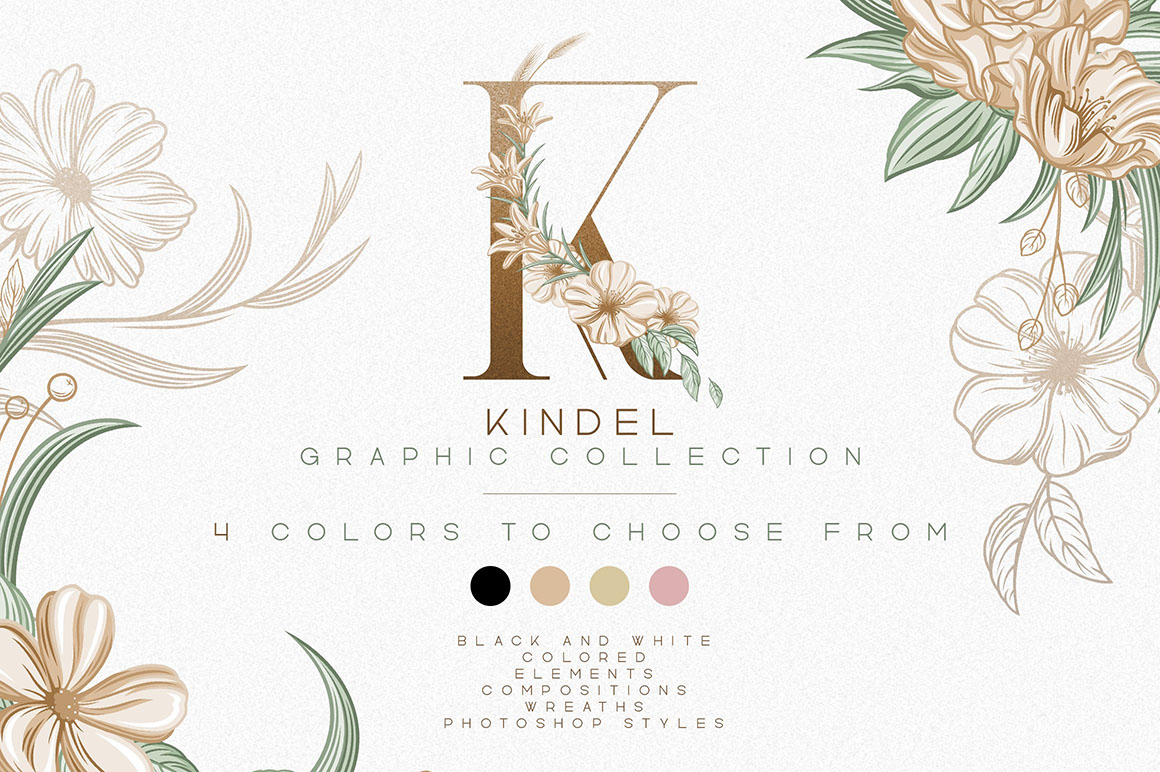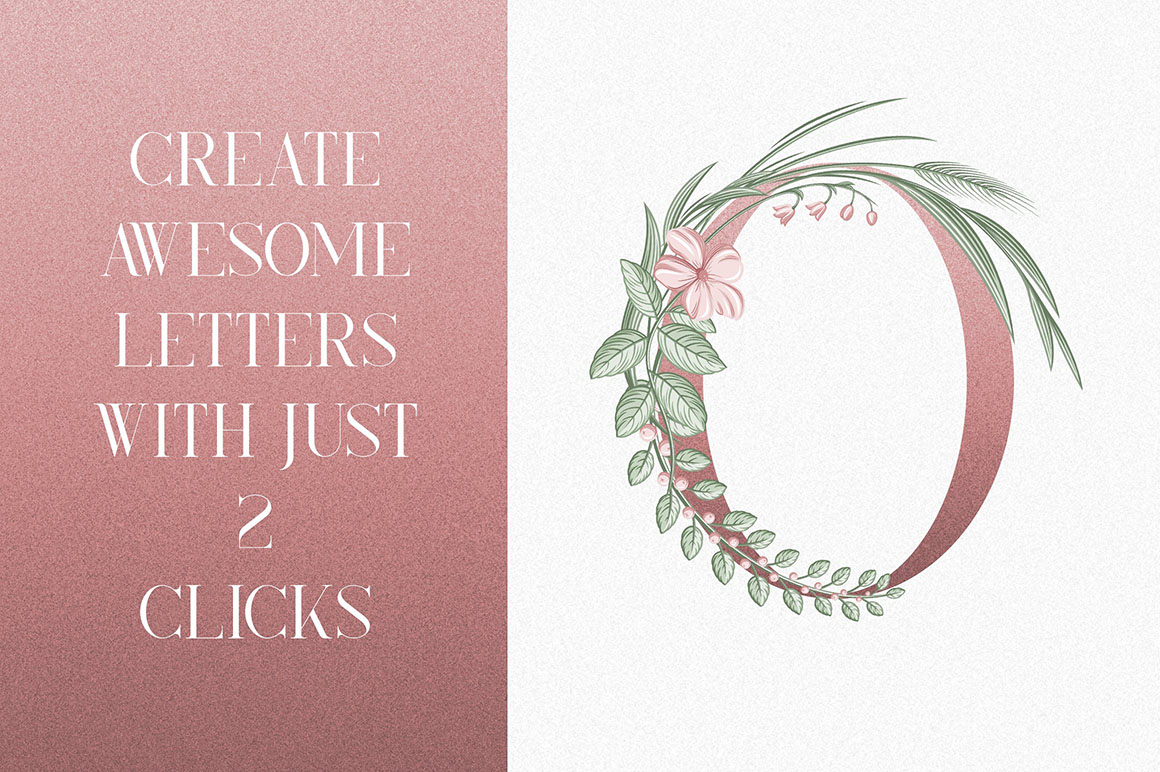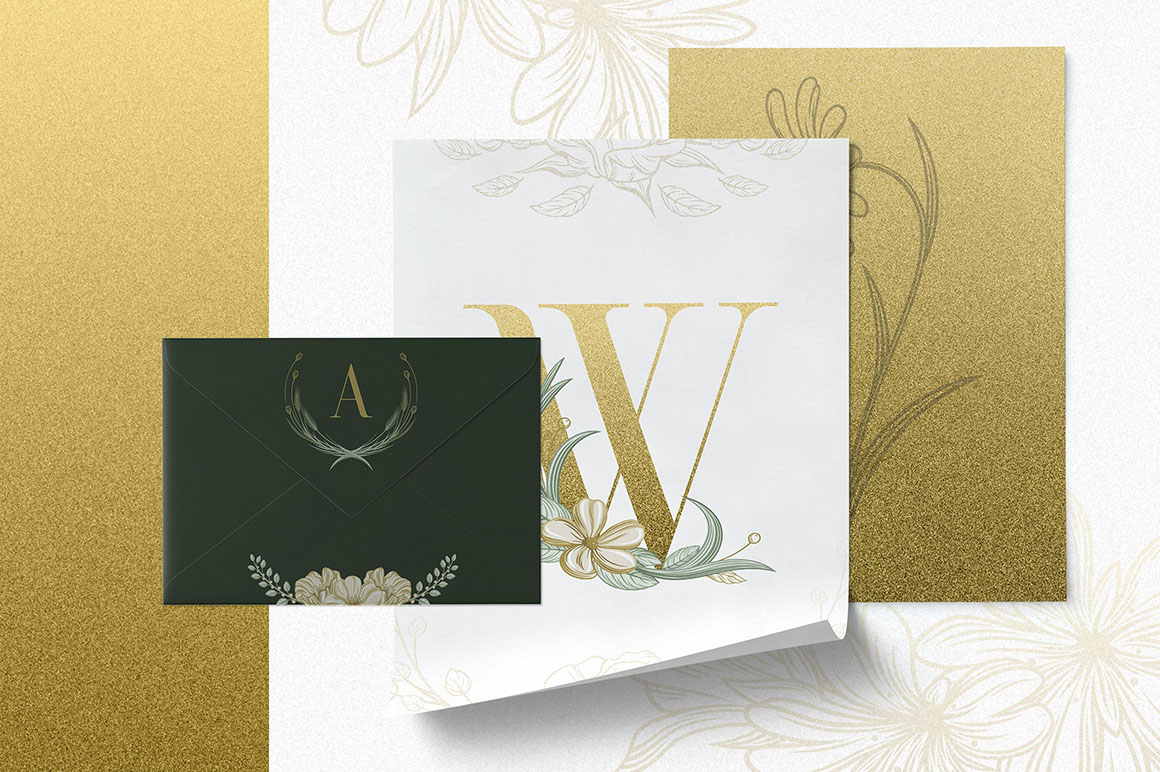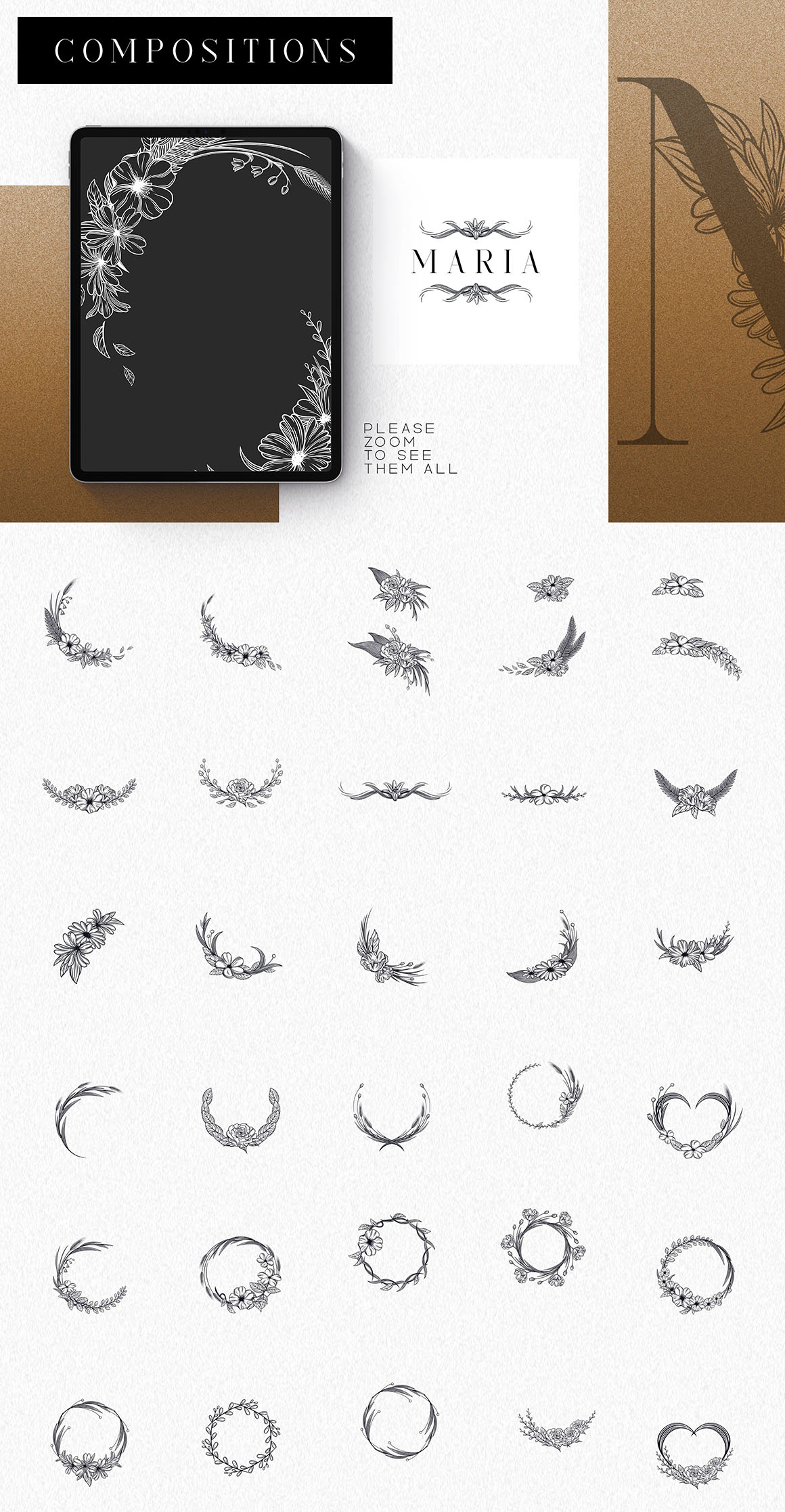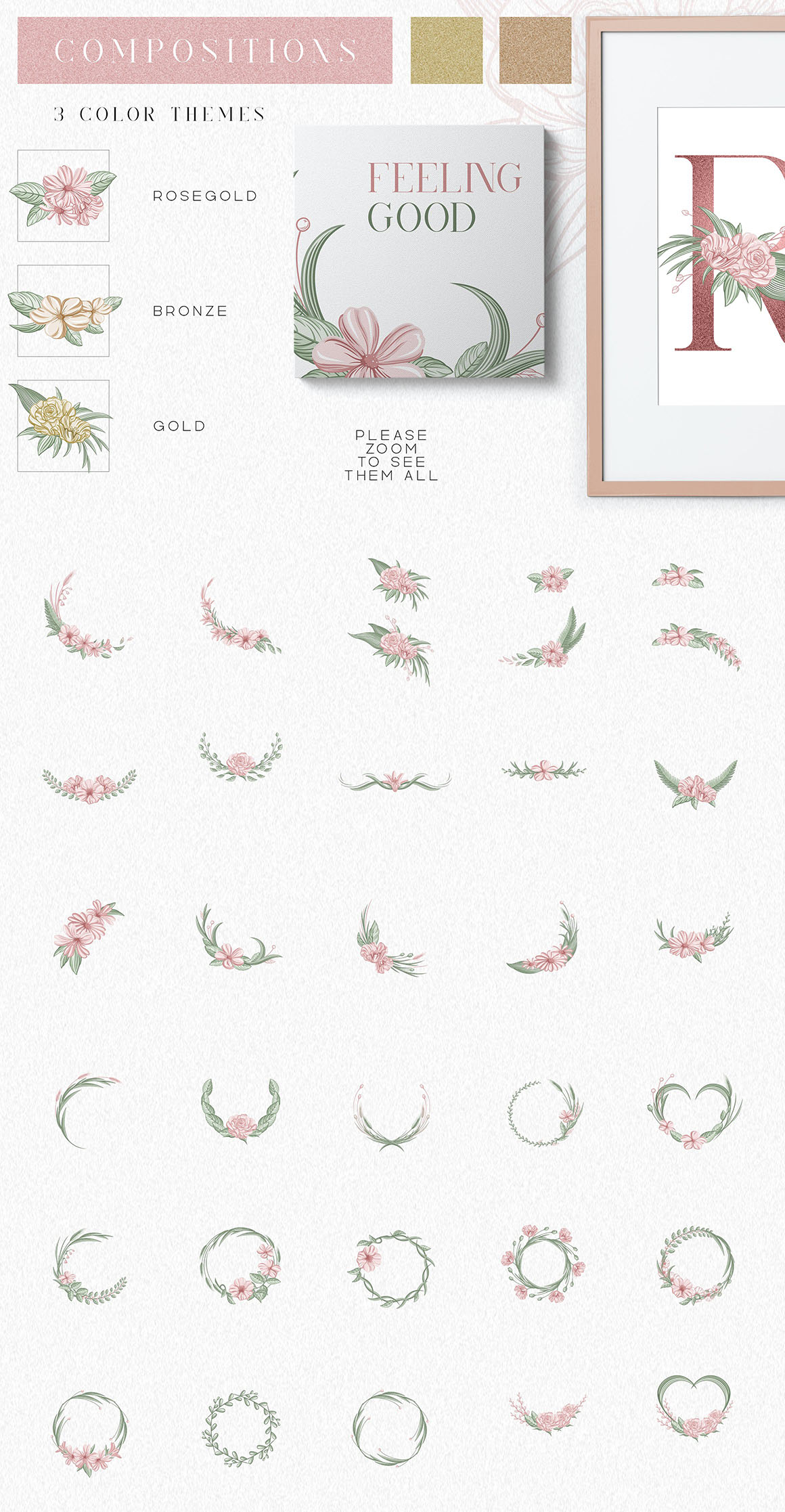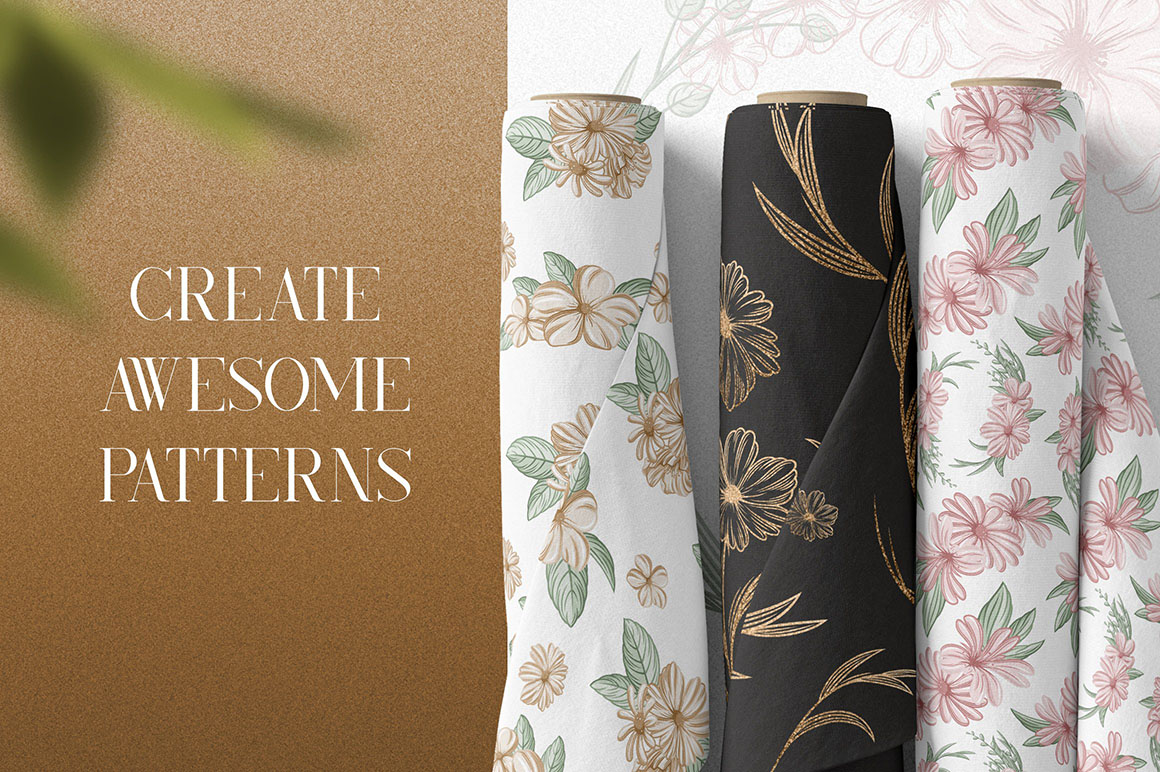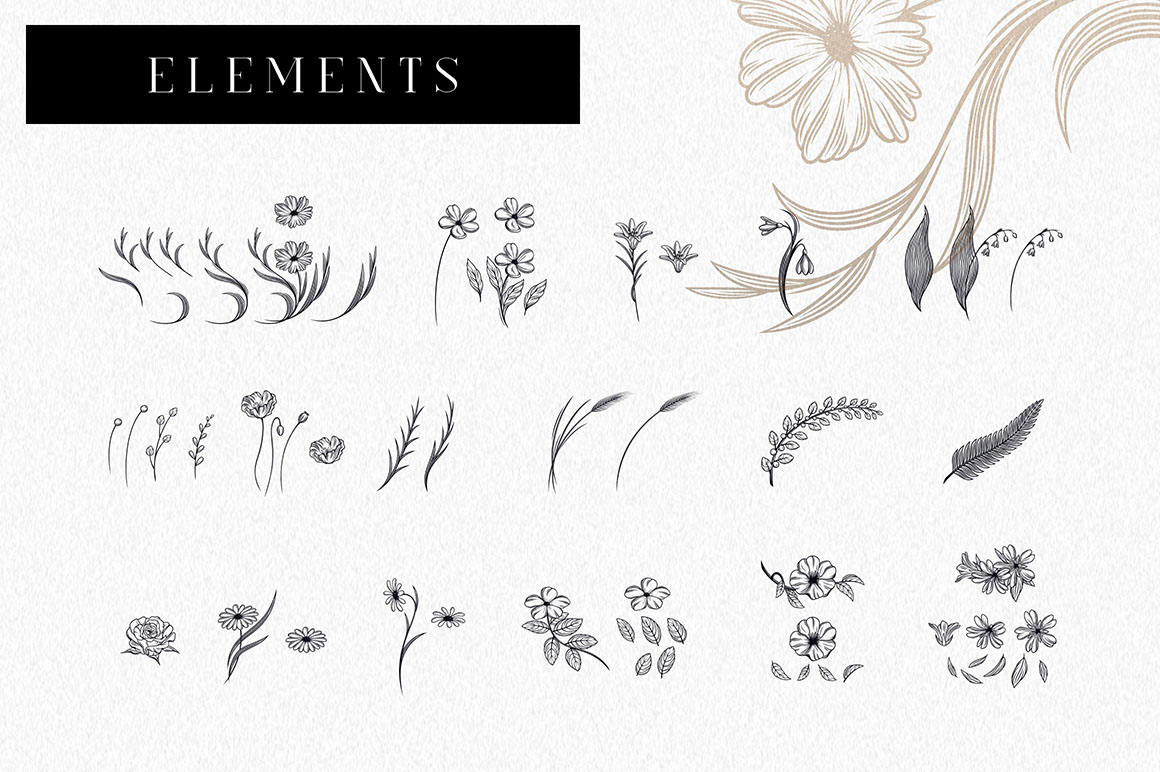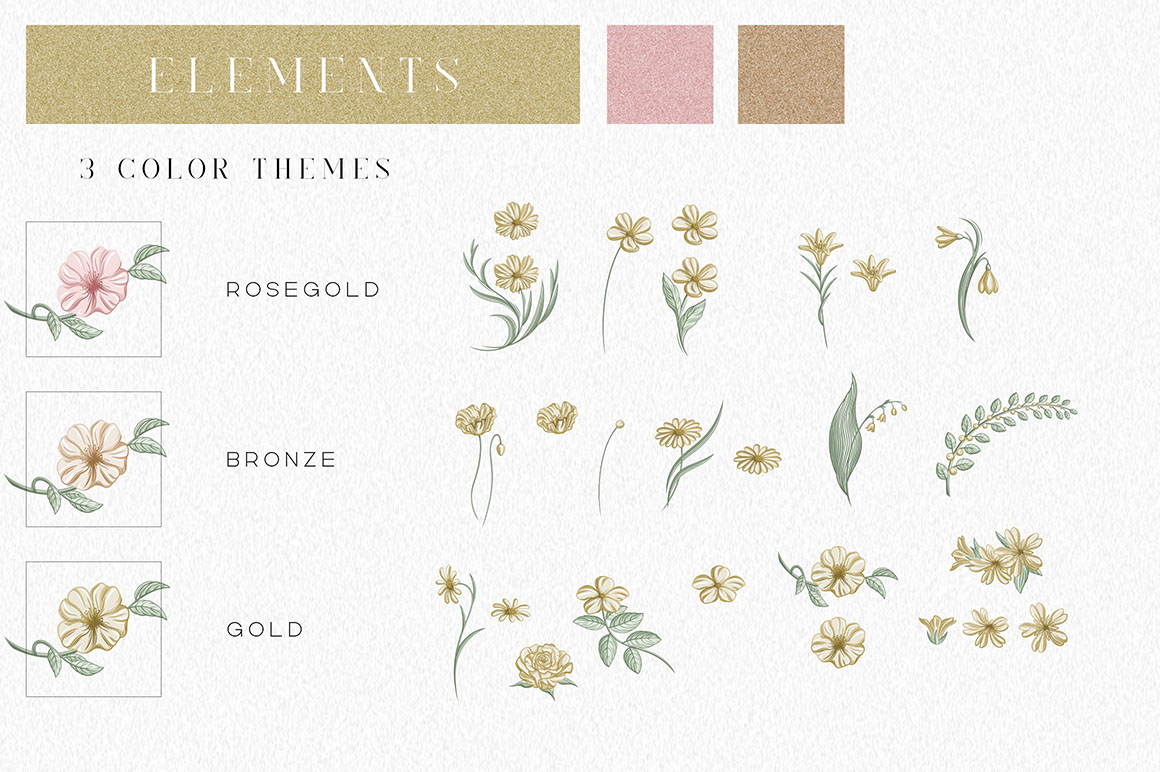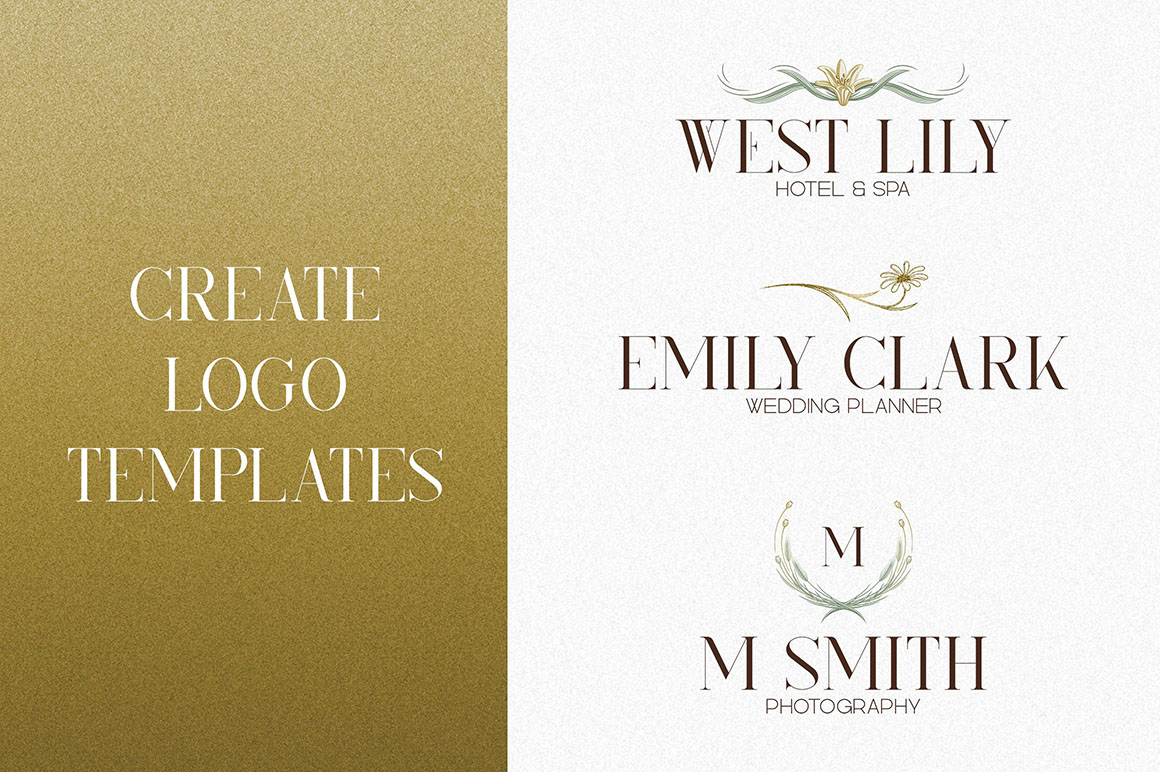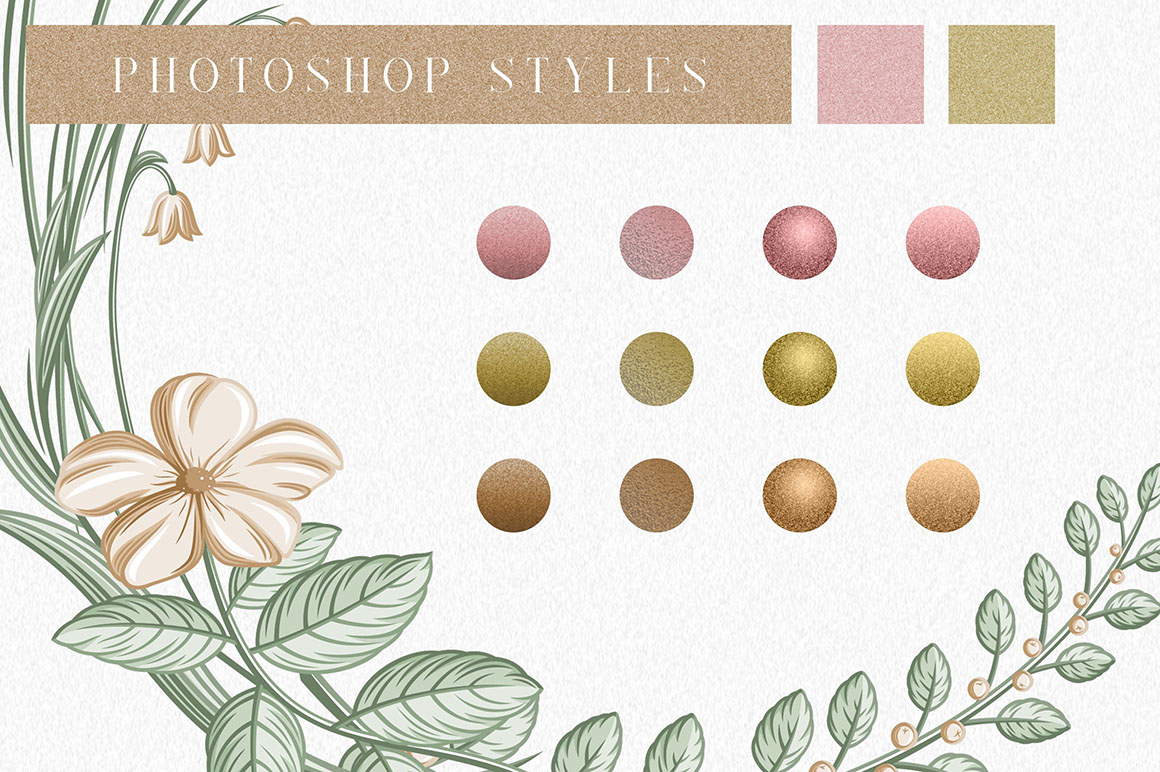
Elegant Typeface Collection
Brand new modern or fancy style typography bundle with 3 multilanguage display fonts & elegant vector graphics set!Ā All these fonts are modern & unique so you can use it for any kind of modern branding projects or T-shirt designs šŸ˜‰
Elegant Typeface Collection from VPcreativeshopĀ contains 3 multilanguage display fonts for your new projects + vector graphic collection!Ā Don’t miss this creative & modern style font & branding bundle šŸ˜‰
3 multilanguage display fonts & vector graphic collection!
01. Kindel – Serif Typeface | 4 styles fromĀ VPcreativeshop
Kindel Serif is modern, sophisticated typeface with total of 4 font styles, loaded with ligature glyphs and multilingual support. It’s a very versatile font that works great in large and small sizes. Kindel Serif is perfect for branding projects, home-ware designs, product packaging, magazine headers – or simply as a stylish text overlay to any background image.
02. Kindel Script fromĀ VPcreativeshop
Kindel is clean script with multilingual support. It’s a very versatile font that works great in large and small sizes. Kindel is perfect for branding projects, home-ware designs, product packaging, magazine headers – or simply as a stylish text overlay to any background image.
03. Kindel – Sans Serif Typeface fromĀ VPcreativeshop
Kindel is modern, clean typeface with total of 8 font styles and multilingual support. It’s a very versatile font that works great in large and small sizes. Kindel is perfect for branding projects, home-ware designs, product packaging, magazine headers – or simply as a stylish text overlay to any background image.
04. Kindel Graphic Collection fromĀ VPcreativeshop
In this collection you will find – awesome botanical elements, wreaths, compositions, photoshop styles. Every illustration comes with 4 color choices – black and white, gold, bronze and rose gold. All the elements are made with solid color – that makes them easy to print šŸ™‚